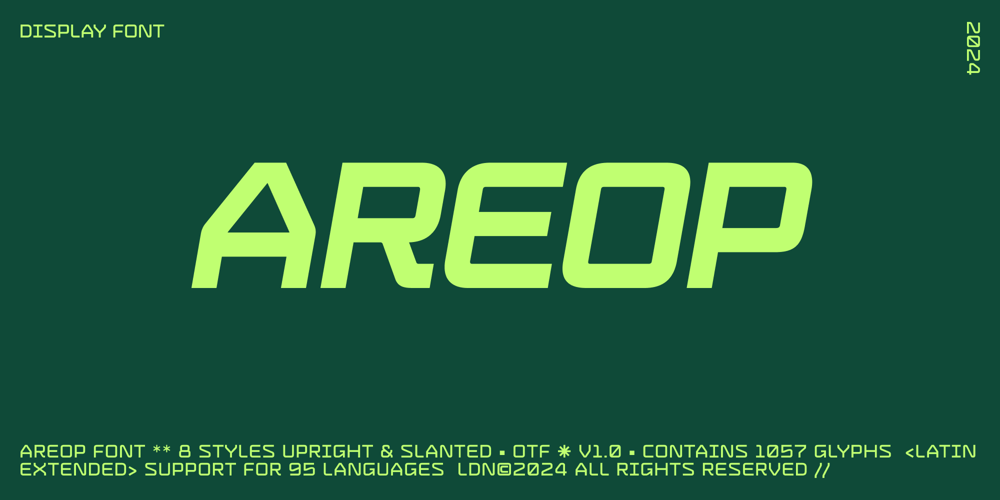
Areop Font Family was designed by published by BRCH Studio. Areop contains 8 styles and family package options. AREOP is a modern, geometric typeface combining clarity with a futuristic, tech-inspired design, making it suitable for headlines, branding, and innovative visual projects.With over 1000 glyphs AREOP supports up to 95 extended latin and basic cyrillic languages.